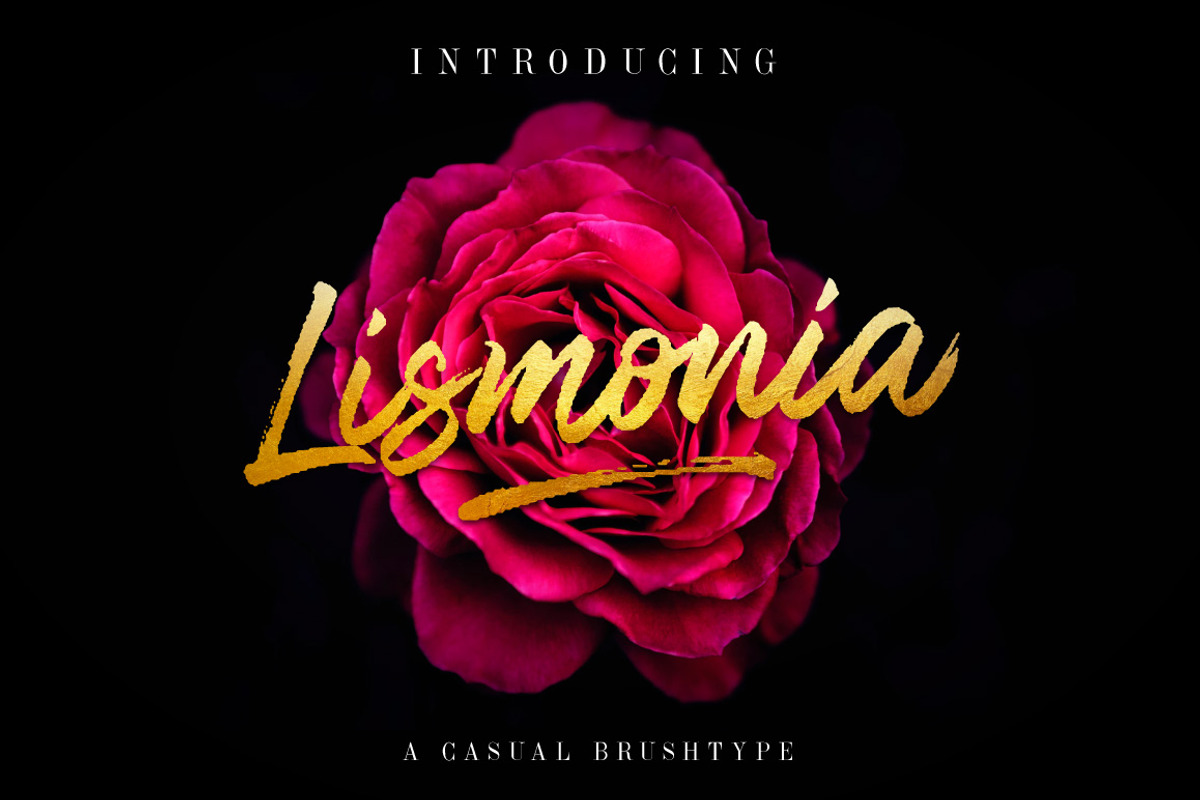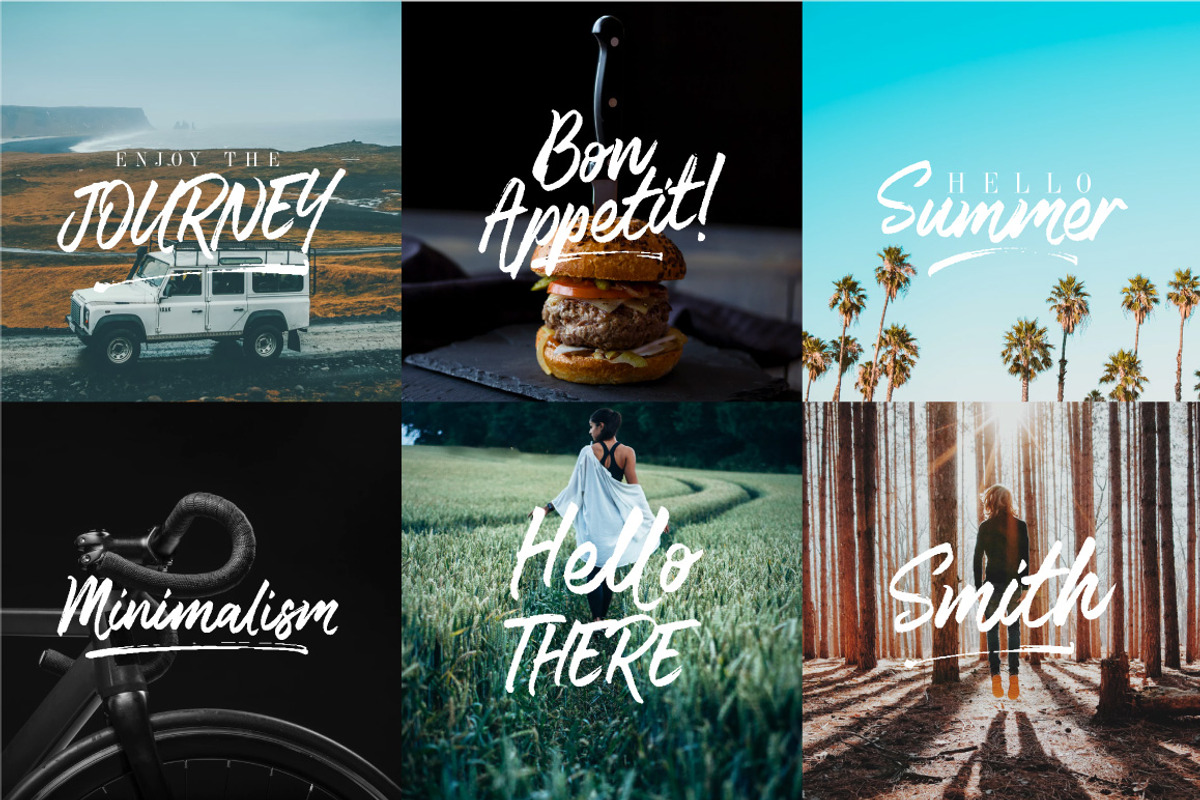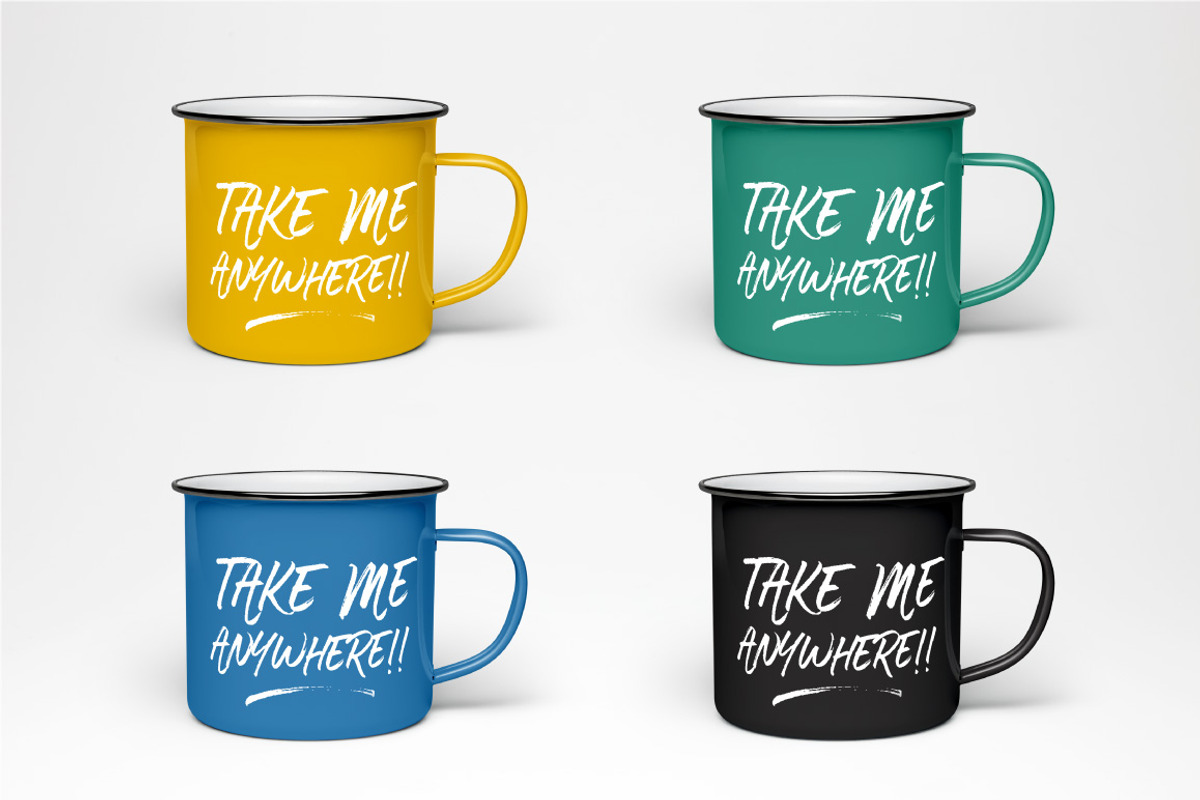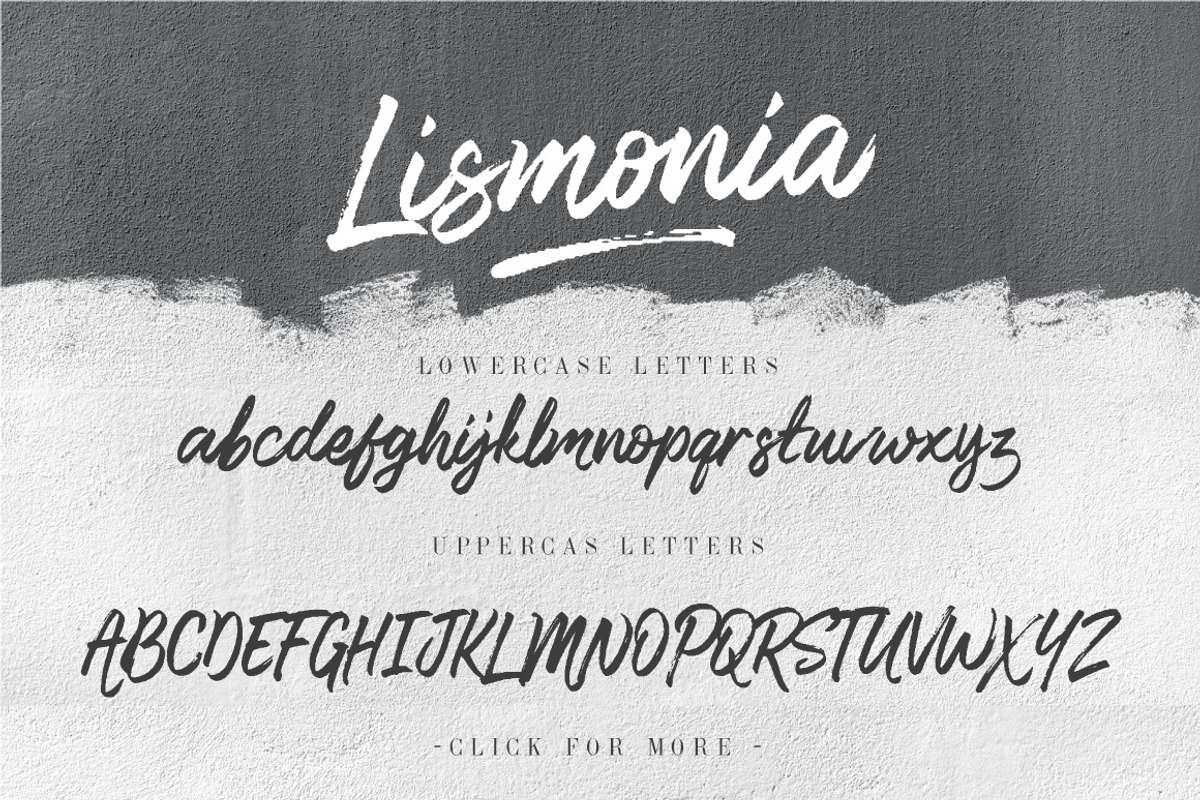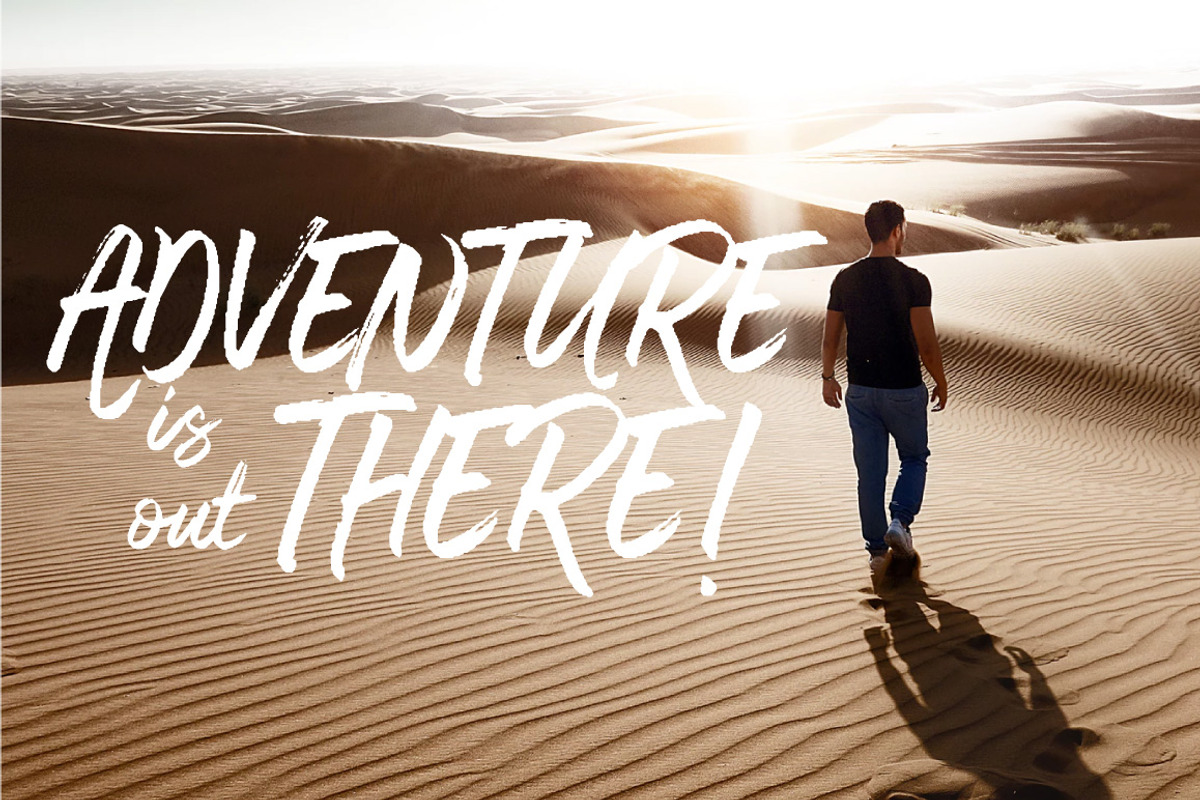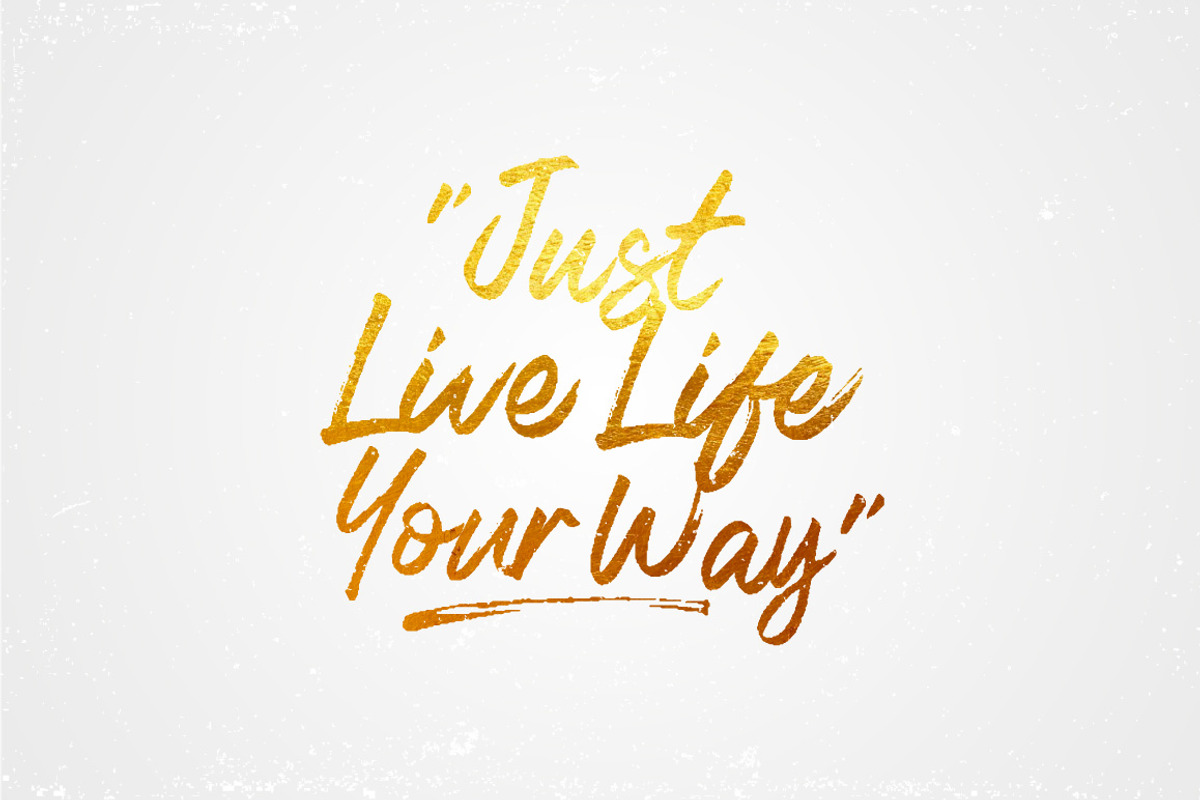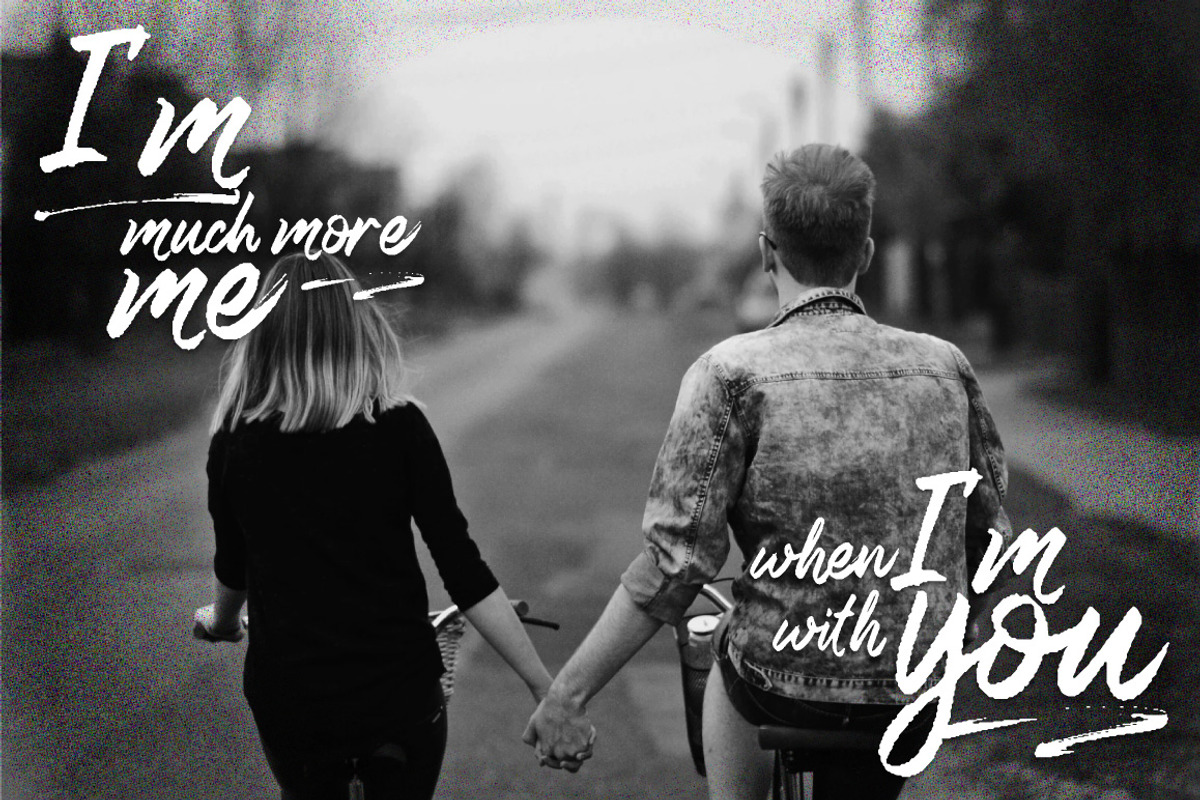
Lismonia Font
Introducing Lismonia, a casual handwritten brush font with quick dry strokes and a signature style. Lismonia great to use for logos, inspirational quotes, t-shirt graphics, typography art, apparel, labels, posters, business cards, stylized wedding invitations, prints, signs, book cover designs headlines, titles, etc.
Why Lismonia Font is worth a look
Lismonia Font by Tastype fits naturally into Branding, posters, packaging, typography.